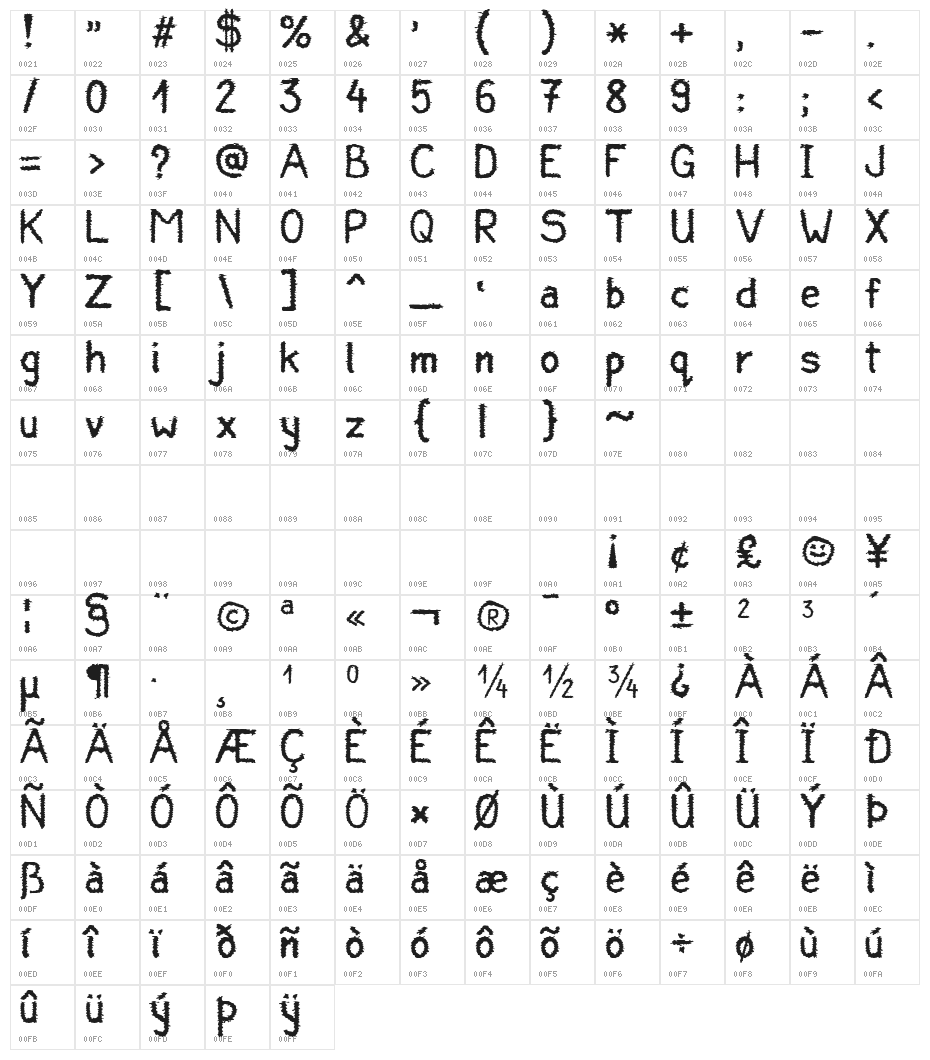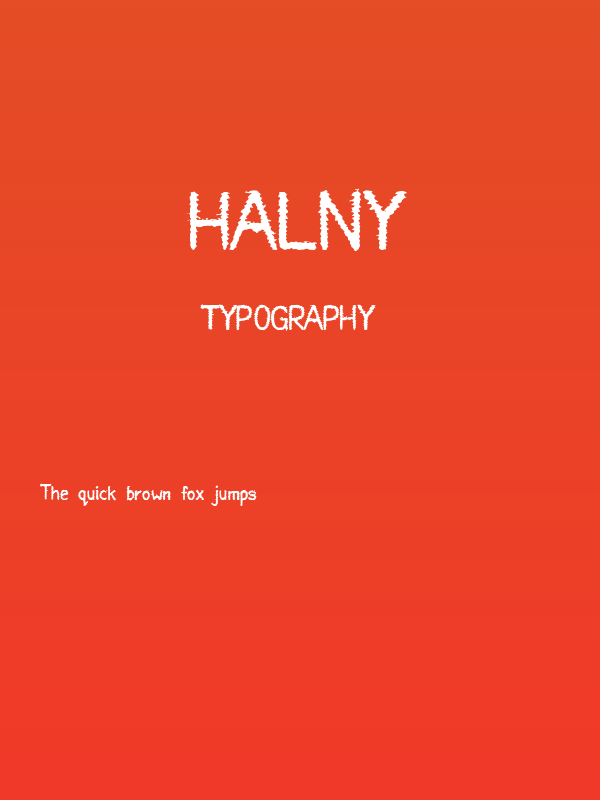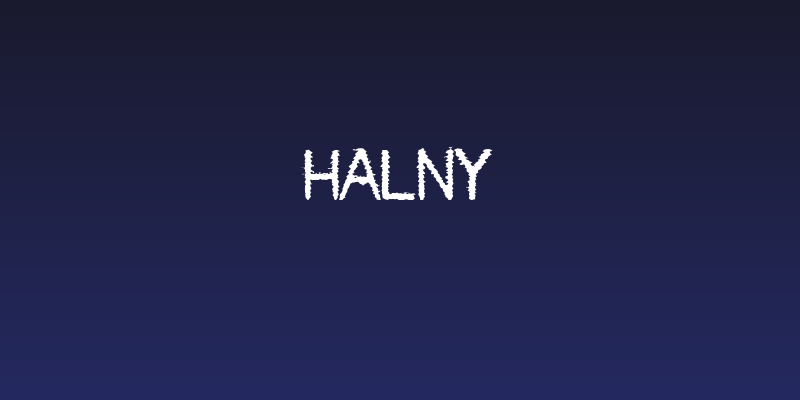
Halny Font
Halny Description
This font features a rugged, textured appearance reminiscent of hand-drawn or distressed styles. The edges of each character are irregular and jagged, giving it a dynamic and energetic feel. The uppercase and lowercase letters maintain a consistent height, while the numerals and special characters follow the same stylistic approach. This font's unique texture makes it stand out, adding a sense of movement and vibrancy to any design. Its bold presence is ideal for creating eye-catching headlines or artistic projects that require a touch of creativity and flair.
| Use Case | Headlines, Logos, Artistic projects |
| Proposed Projects | Ideal for posters, album covers, artistic projects, and any design needing a bold, creative touch. |